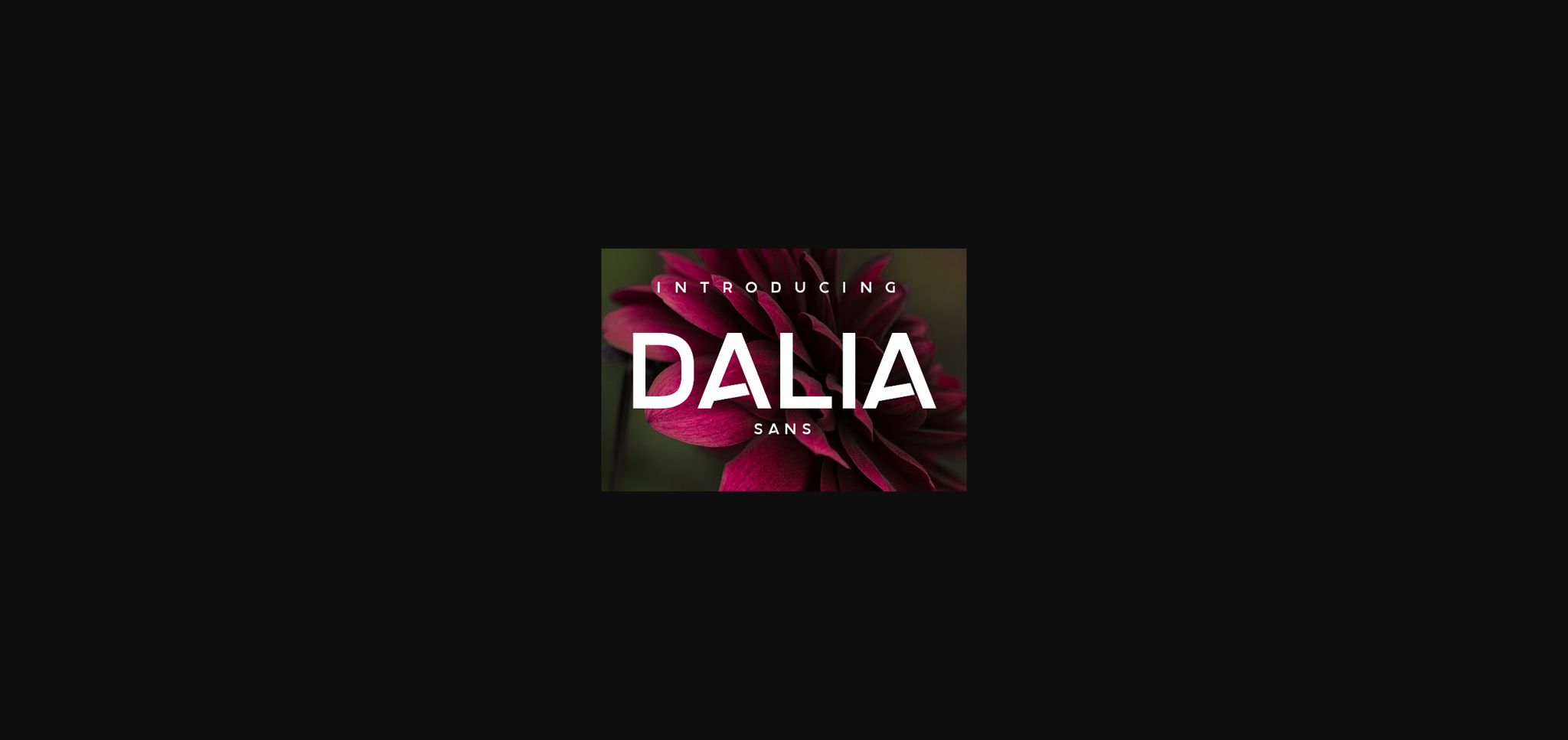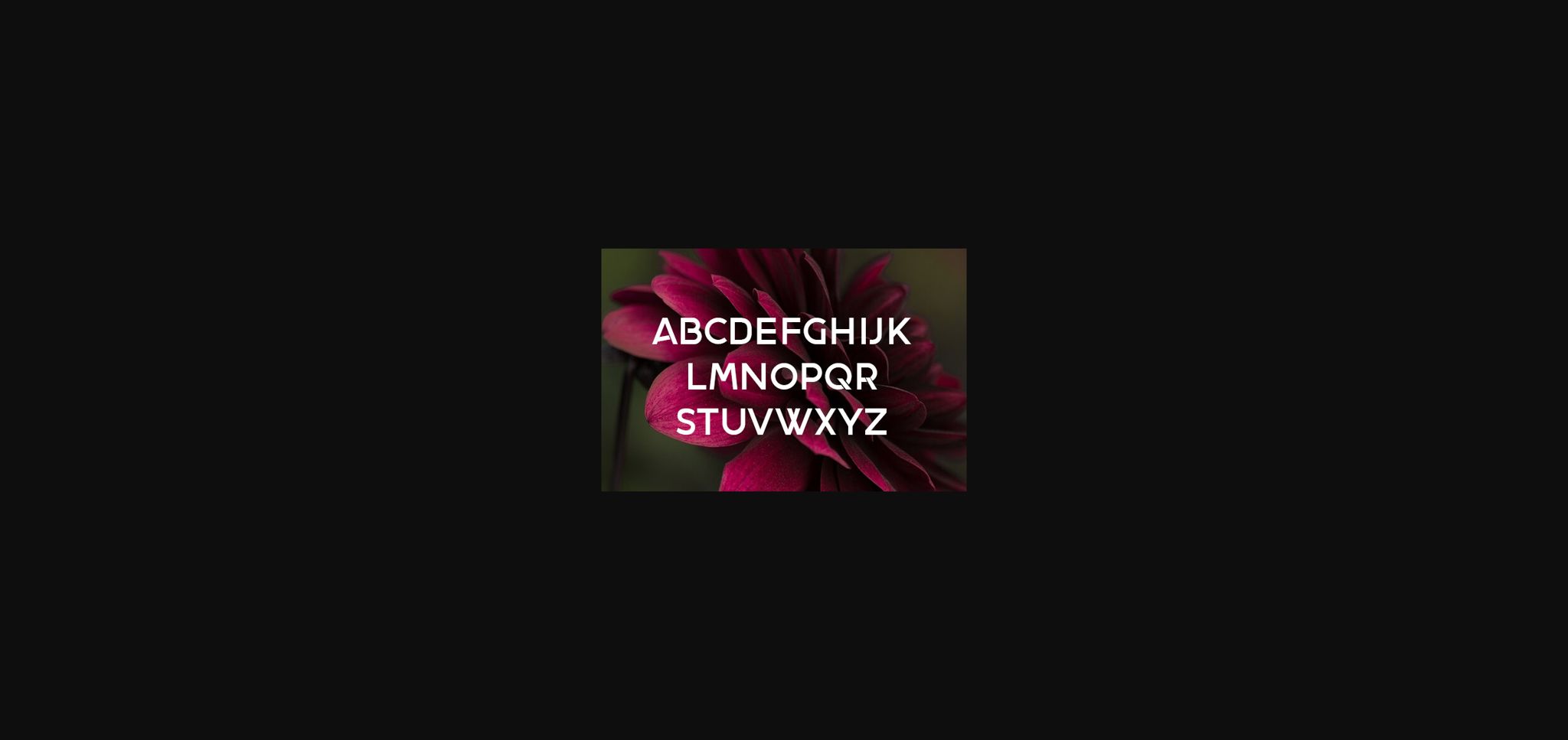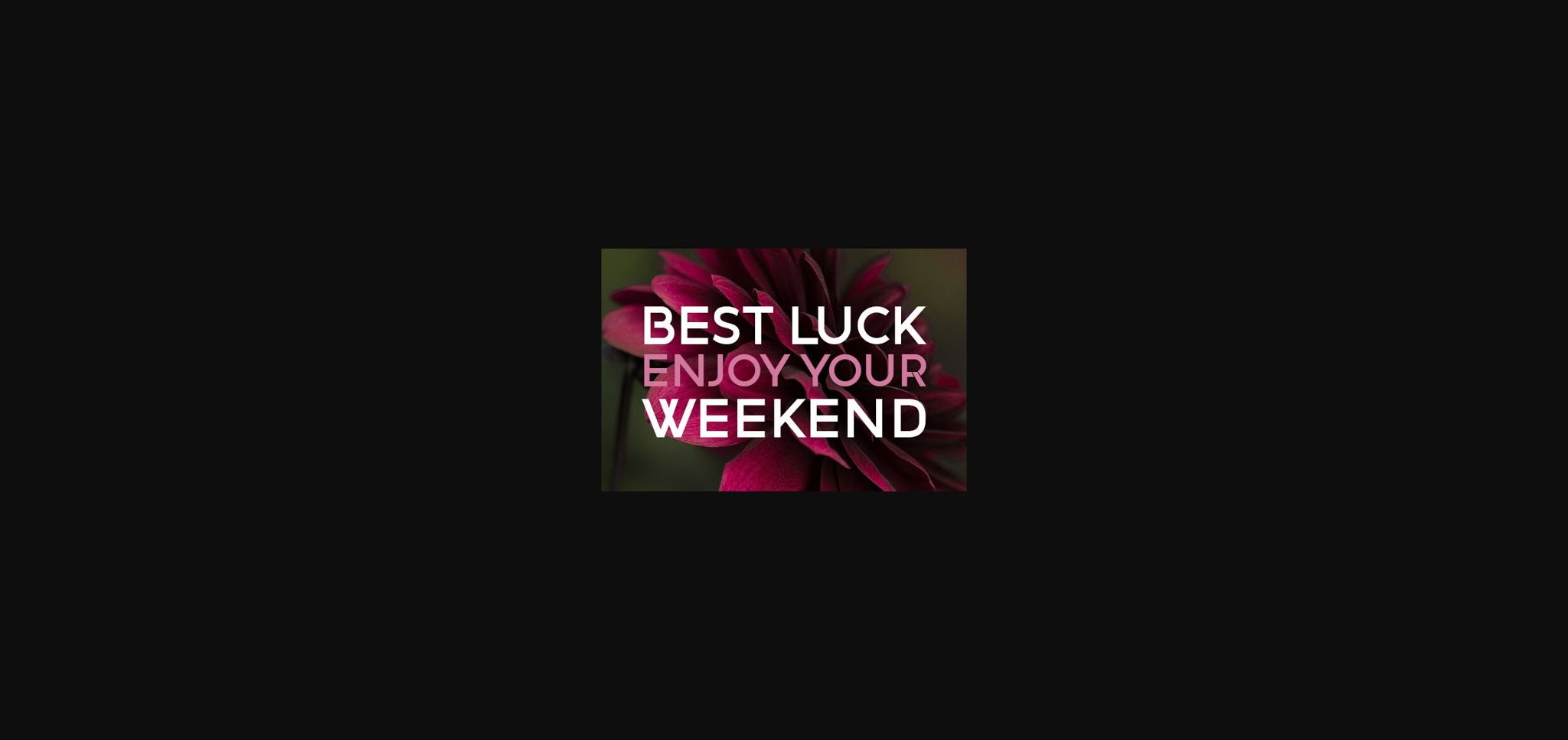
About Dalia Font
Dalia is stylish all caps sans serif font that will look awesome on any of Your designs. Use this font on posters, postcards and t-shirts.